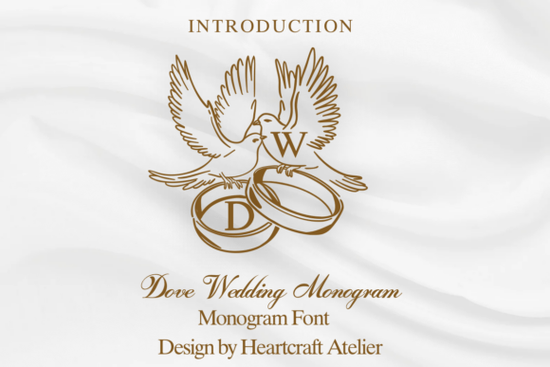
If you’re looking for a font that adds a soft, romantic touch to wedding projects or personal keepsakes, the Dove Wedding Monogram might be exactly what you need. It’s a decorative font designed with elegance in mind perfect for invitations, thank-you cards, or even custom mugs and shirts for bridal parties. What makes it especially handy is how readable it stays, even when used for handwritten-style notes or journaling.
You don’t have to limit it to weddings, either. The gentle curves and classic monogram structure give it enough versatility to work on social media graphics, gift tags, or branding materials for small creative businesses. If you’ve ever browsed fonts like Fiesta Circuit or Spirit Moon, you’ll notice this one sits comfortably between ornate display fonts and everyday handwriting styles making it easier to pair with other typefaces without clashing.
What kinds of projects does this font actually work well for?
Here’s where it shines:
- Wedding stationery Invitations, place cards, menus, and programs all benefit from its graceful letterforms.
- Personal journals or planners The script-like flow feels intimate and warm, great for daily entries or memory keeping.
- Print-on-demand products Think mugs, tote bags, or T-shirts with sweet quotes or couple names the font holds up well at different sizes.
- Social media templates Especially for engagement announcements, anniversary posts, or romantic quotes.
- Branding elements Small boutiques or handmade shops can use it for logo accents, packaging labels, or email headers.
One thing to keep in mind: while it’s legible, it’s still a decorative font. That means pairing it with a clean sans-serif (like something similar to David) for body text will help your message stay clear and easy to read.
How does it compare to other decorative fonts on Creative Fabrica?
It’s less bold than Blaze, which leans into dramatic strokes and high contrast so if you want something quieter and more timeless, Dove Wedding Monogram fits better. Compared to Spirit Moon, it’s also more structured; Spirit Moon has a looser, almost mystical vibe, while Dove Wedding feels grounded and classic.
If you’re already using fonts like Fiesta Circuit for party themes or David for minimalist branding, adding this one to your toolkit gives you a softer option for emotional or sentimental designs. It doesn’t shout it whispers, in the best way.
Any tips for getting the most out of this font?
A few practical ideas:
- Use sparingly. Even though it’s readable, too much of this font in one layout can feel overwhelming. Stick to headlines, names, or short phrases.
- Pair with whitespace. Give the letters room to breathe especially in print or on physical products. Crowded layouts dilute its charm.
- Try it in gold foil or embossed finishes. The delicate lines respond beautifully to luxury printing techniques.
- Test sizing early. Some decorative fonts lose detail at small sizes. Print a sample or zoom out on your screen to make sure key details don’t disappear.
And if you’re designing for clients, consider showing them two versions: one using Dove Wedding Monogram for headings, and another with a simpler font. Sometimes clients don’t realize how much readability matters until they see the difference side by side.
Where should I start if I’m new to using decorative fonts?
Pick one project maybe a set of thank-you cards or a simple Instagram quote post and build around the font instead of forcing it into an existing design. Let its style guide your color palette, spacing, and supporting graphics. You’ll find it naturally pulls your design toward softer tones, floral elements, or vintage textures.
If you like how this one works, you might also enjoy browsing similar styles like David for contrast, or Blaze if you later want to experiment with bolder energy.
Fonts like this one are meant to add personality not complexity. Start small, use it where it feels natural, and let the design do the rest.